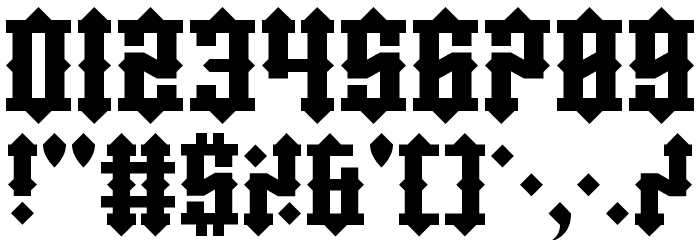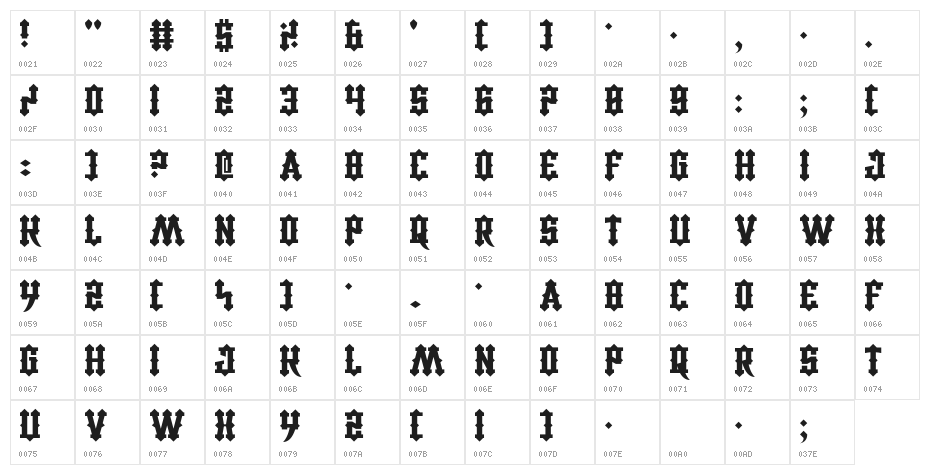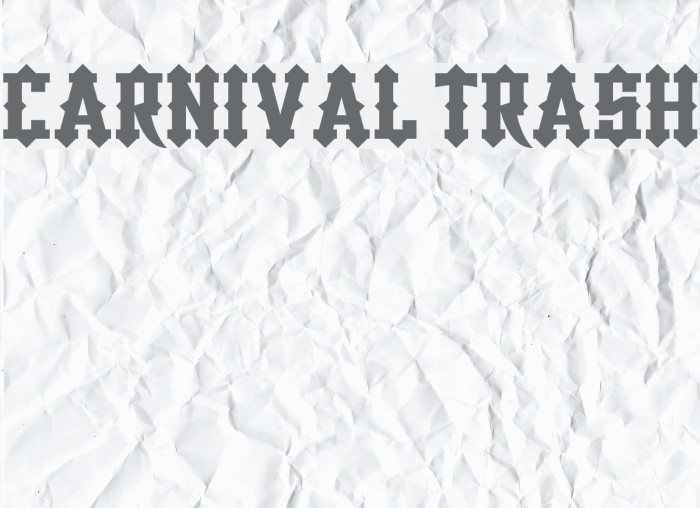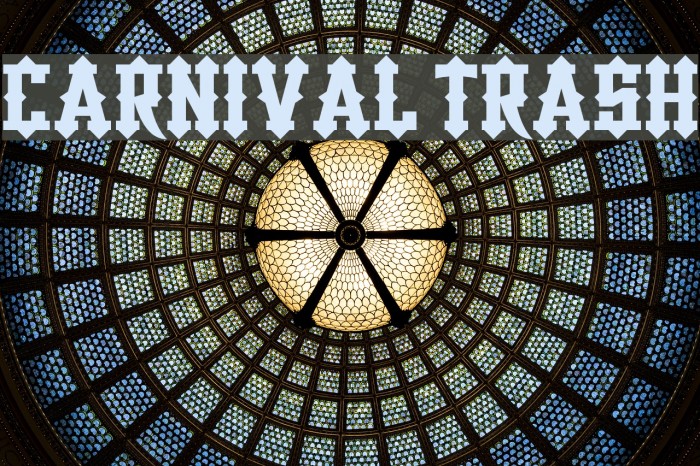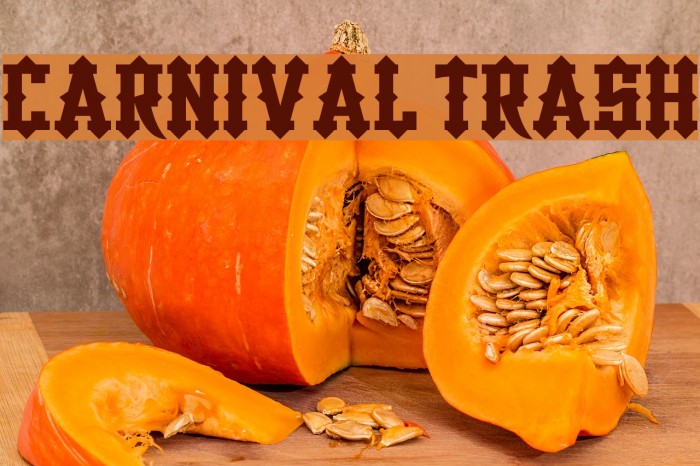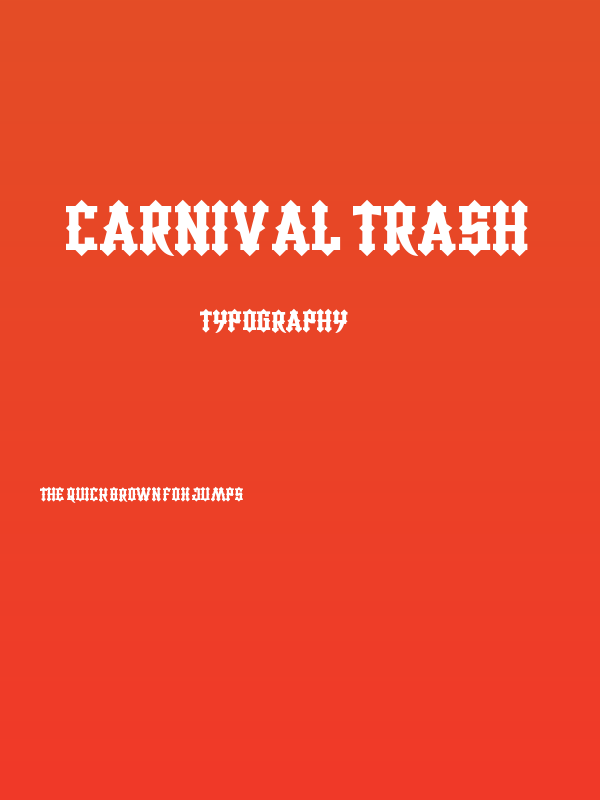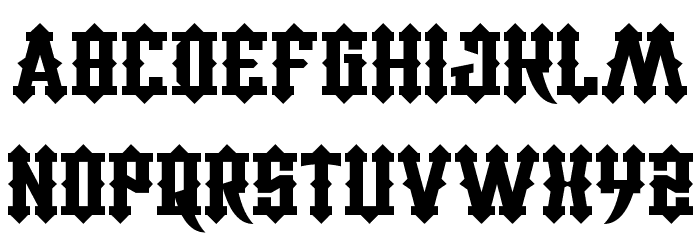
Carnival Trash Font
Carnival Trash Description
This font features a bold and striking design with sharp, angular edges and a distinct gothic influence. The characters are heavily stylized, with exaggerated serifs and a blocky structure that gives them a strong, imposing presence. The uppercase and lowercase letters maintain a consistent style, with the uppercase being particularly dominant. Numbers and special characters follow the same bold and angular theme, ensuring uniformity across all text. The font's unique appearance makes it ideal for creating eye-catching designs that demand attention.
| Overall Style | Gothic, Decorative |
| Proposed Projects | Ideal for posters, album covers, event flyers, and any design requiring a dramatic, eye-catching font. |